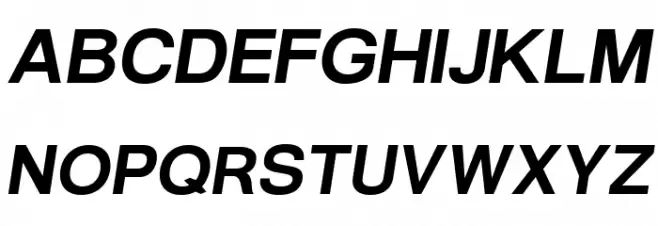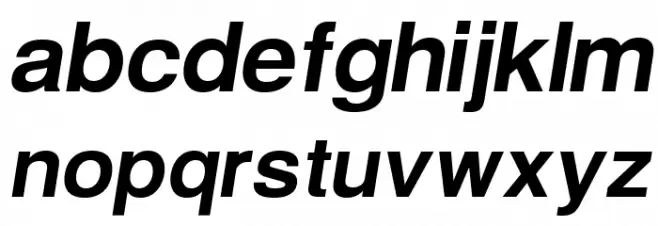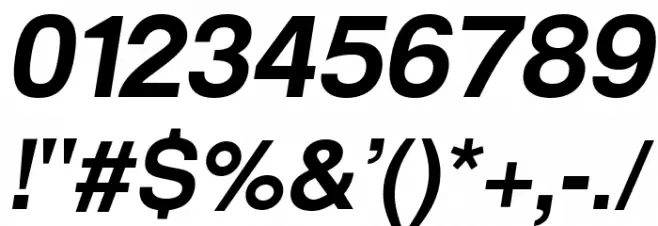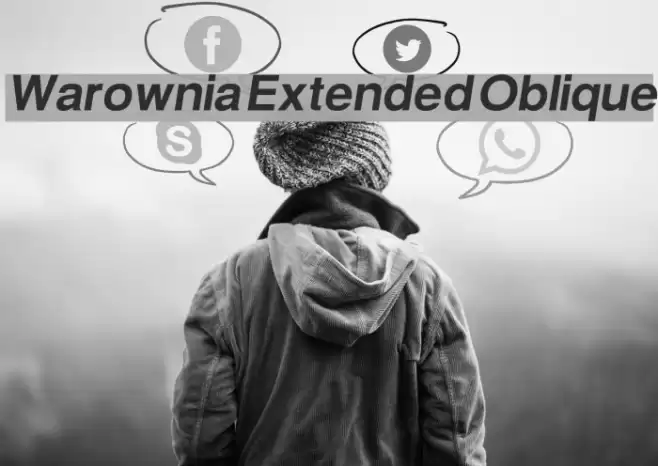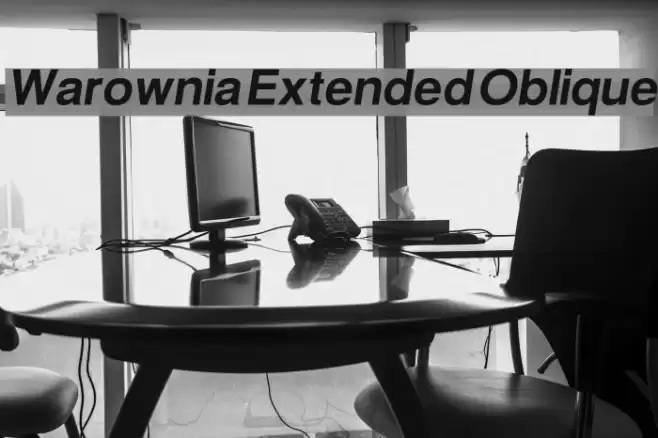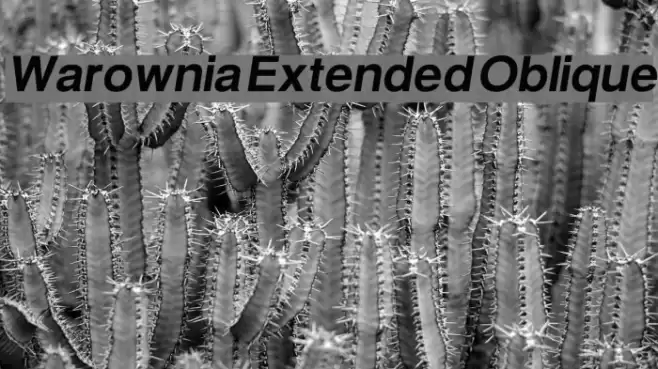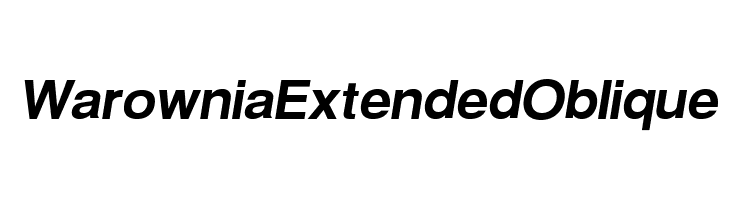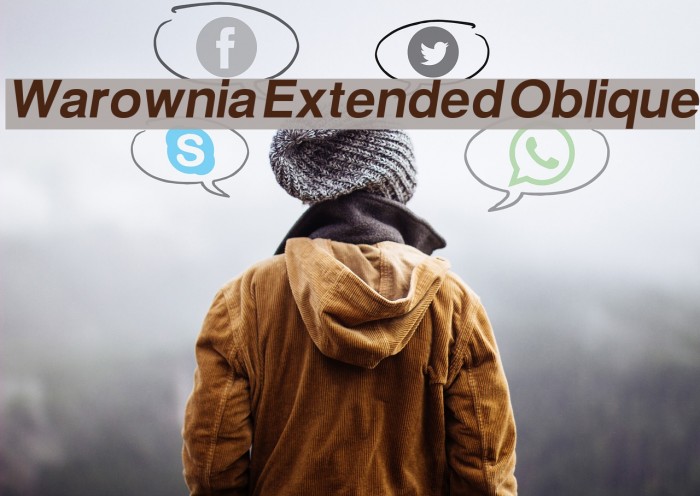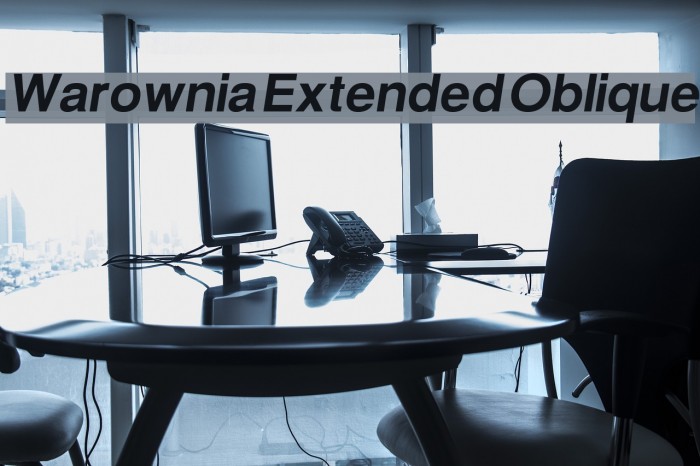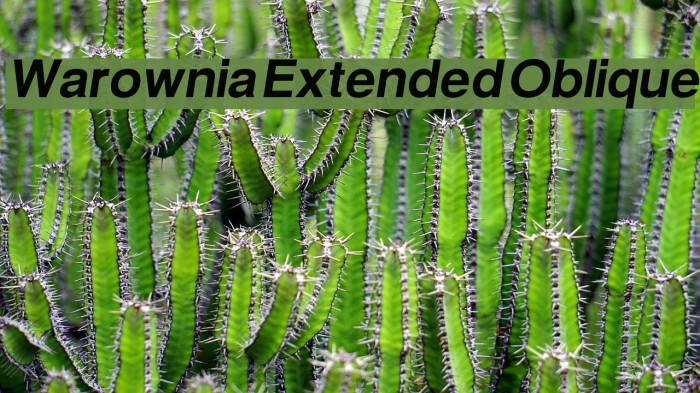
Warownia Extended Oblique
This font features a modern and sleek design with an oblique style, giving it a dynamic and forward-leaning appearance. The characters are well-proportioned with a consistent stroke width, providing a clean and professional look. The extended width of the font adds a sense of stability and presence, making it suitable for impactful headlines and titles. The uppercase and lowercase letters maintain a uniform style, while the numerals and special characters are easily distinguishable, enhancing readability. The overall design is versatile, making it ideal for various digital and print applications.
A modern, oblique font with extended width and consistent stroke width for a sleek, professional look.
- Proposed Projects: Ideal for branding, advertising, headlines, and digital media projects that require a modern and dynamic typeface.
- Width: Expanded
- Use Case: Headlines, Logos, Digital media